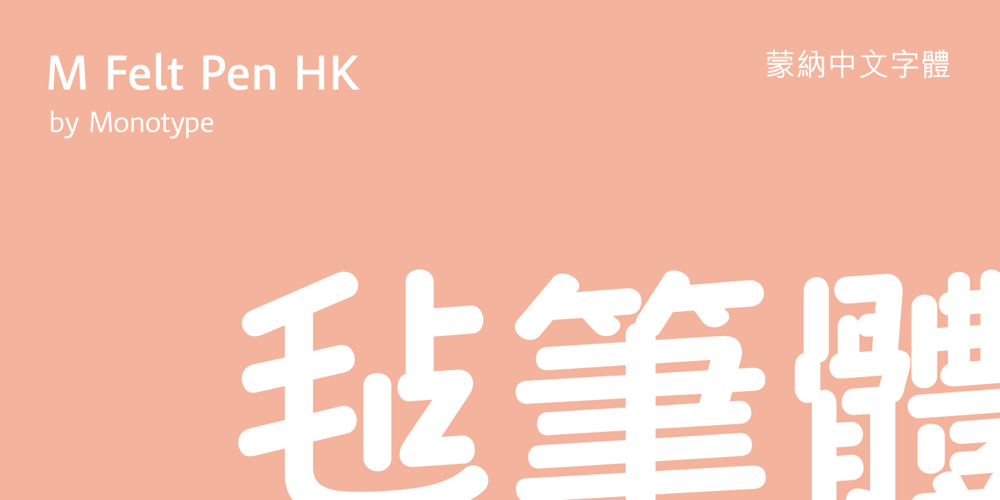
M Felt Pen HK
M Felt Pen HK font
M Felt Pen HK Font Family was designed by Monotype HK Design and published by Monotype HK. M Felt Pen HK contains 2 styles and family package options. To blend a handwritten style with a graphical aesthetic, Monotype designers paid attention to the balance between the two, hence harmoniously combine their qualities like a mix of tradition and modern. M Felt Pen references the unified stroke thickness and rounded terminals of rounded Heiti typefaces, imitating the fluidity of marker writing. The linked strokes are vivid and suggest the presence of the human hand.